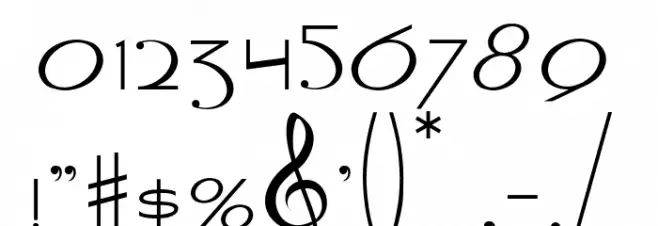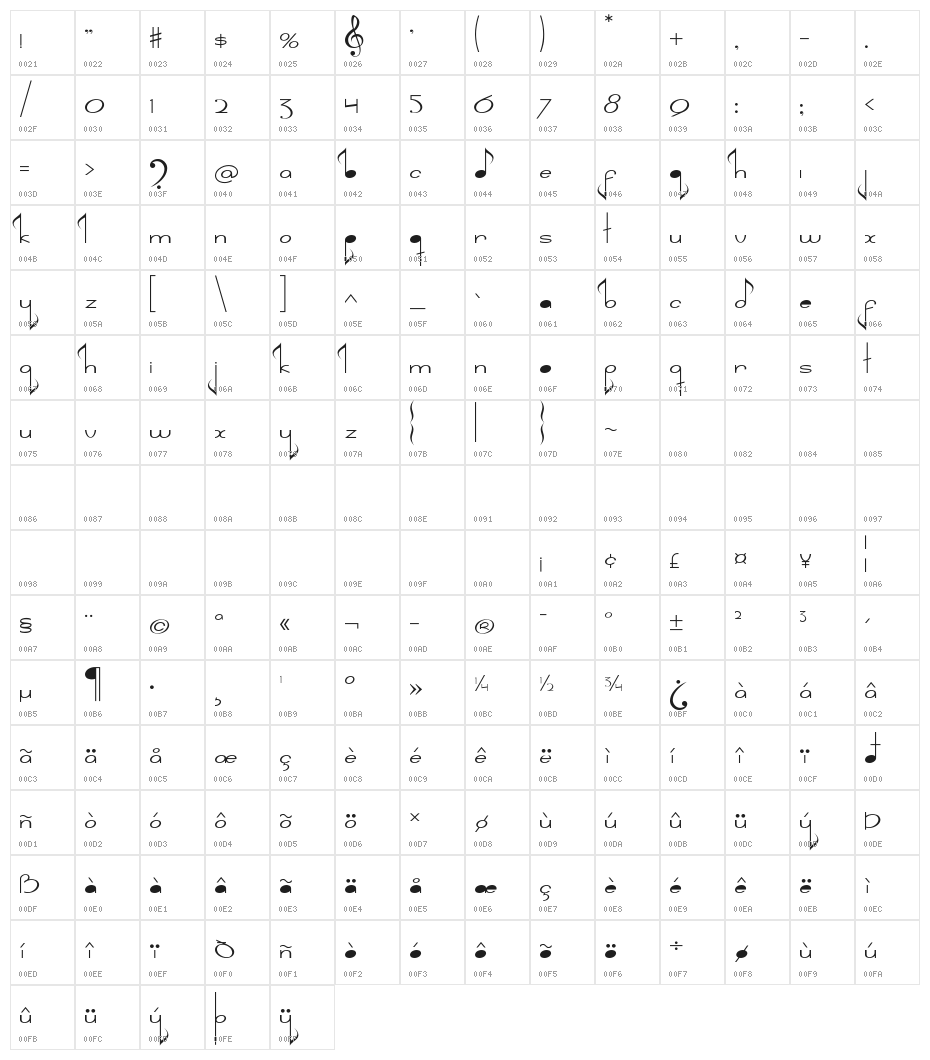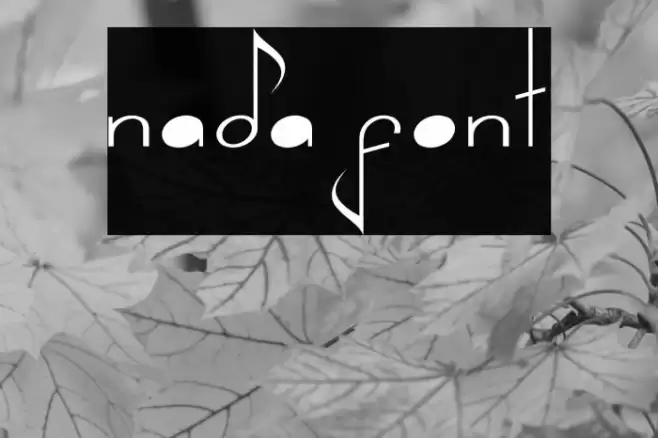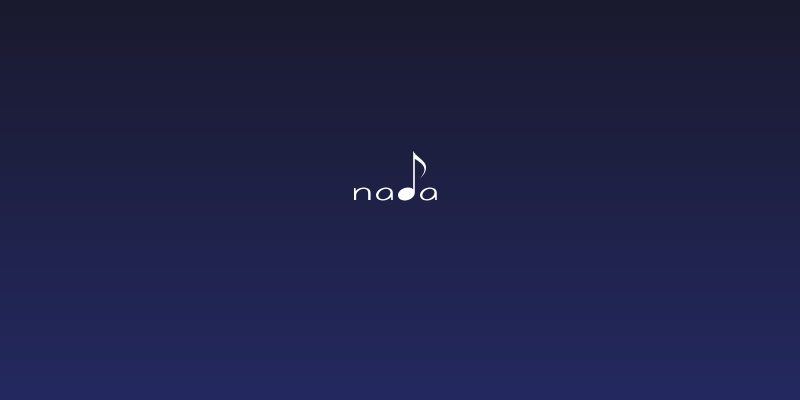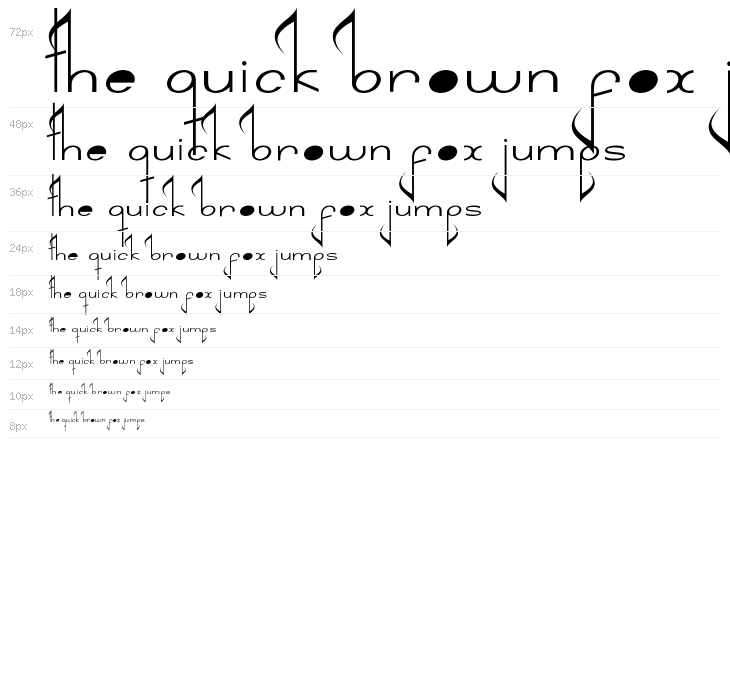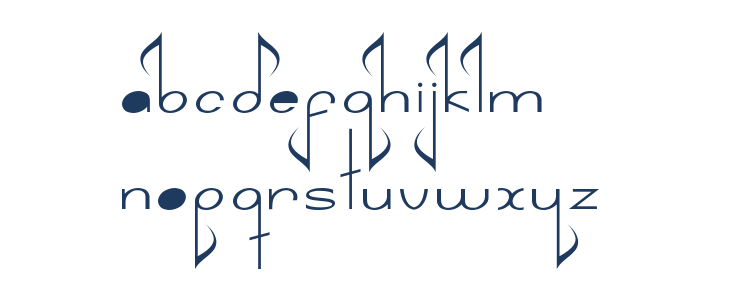
Nada Font
Nada Description
This font features a unique and artistic design, incorporating musical note elements into the letterforms. The characters are sleek and modern, with clean lines and a creative flair that makes them stand out. The integration of musical symbols adds a playful and dynamic touch, making it ideal for projects that aim to convey creativity and rhythm. The font maintains a balance between decorative elements and readability, ensuring that the text remains legible while still offering a distinctive visual appeal.
Overall StyleModern, Decorative
Proposed ProjectsIdeal for music-related branding, concert posters, album covers, and creative event invitations.